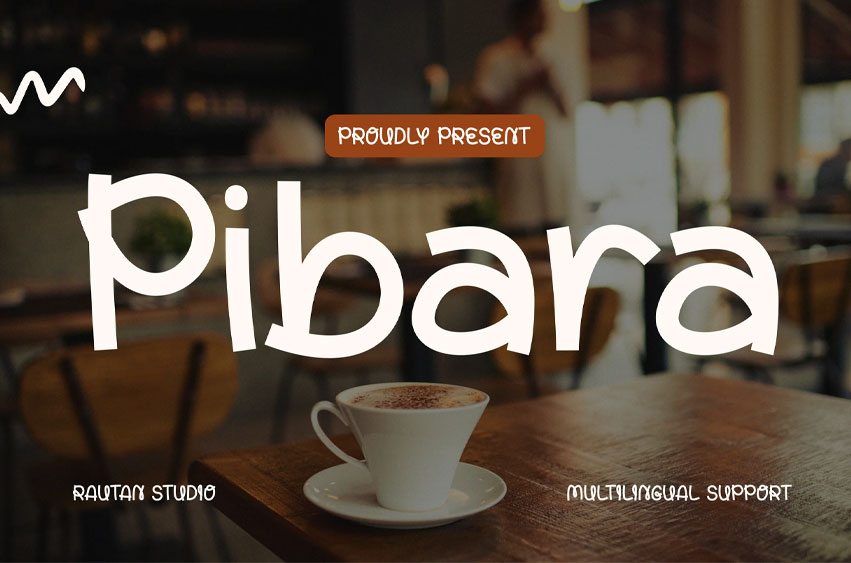
Pibara Font
Pibara Font is a playful handdrawn display for food branding and Instagram-ready visuals, Pibara delivers a warm, inviting tone through its soft curves, rounded structure, and low-contrast strokes, creating a friendly and expressive personality that feels approachable and human.
Its bubbly and cozy vibe fits naturally into café culture, bakery branding, and modern social media content. Perfect for branding, product packaging, social media posts, posters, and food-related visuals, this typeface brings a relaxed yet distinctive charm that stands out without feeling forced.
Pibara is built for designers who want attention-grabbing yet friendly branding. Whether you’re crafting a coffee shop identity, bakery packaging, Instagram campaign, or product label, its soft and playful structure instantly creates a welcoming emotional connection. It helps brands feel more human, approachable, and memorable, making it ideal for businesses targeting lifestyle, food, and casual consumer markets.
Key Features : Expressive & Friendly Letterforms
• Rounded shapes with soft terminals for a warm, inviting feel
• Handdrawn style adds personality without sacrificing readability
Built for Food & Lifestyle Branding
• Perfect for cafés, bakeries, beverages, and packaging design
• Works seamlessly on menus, labels, posters, and social media
Multilingual Power (67 Languages)
• Expanded character set for global branding needs
• Ideal for international products and cross-market campaigns
Highly Versatile Display Style
• Strong presence for headlines and titles
• Maintains clarity in both print and digital formats